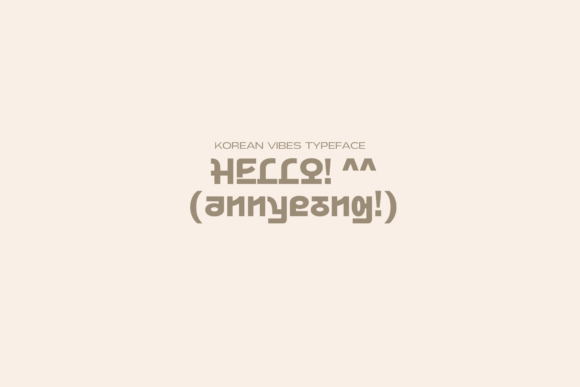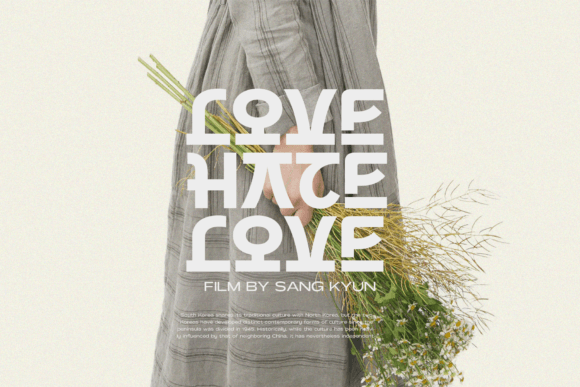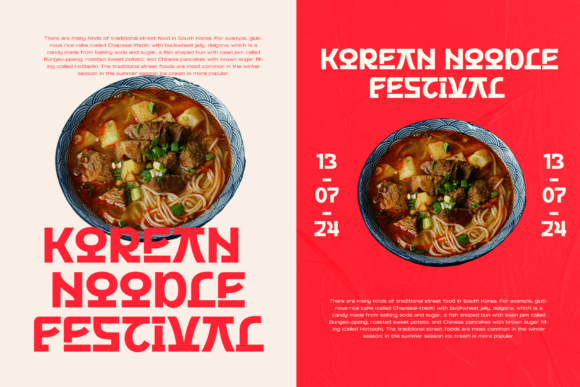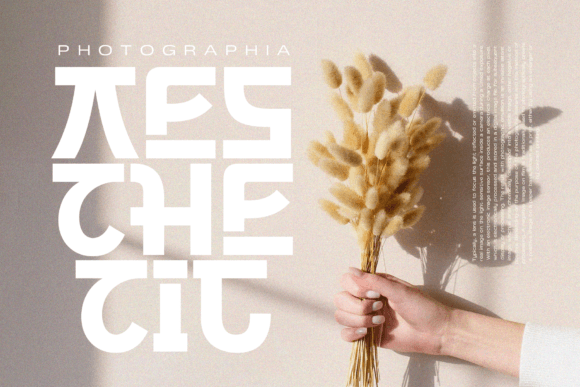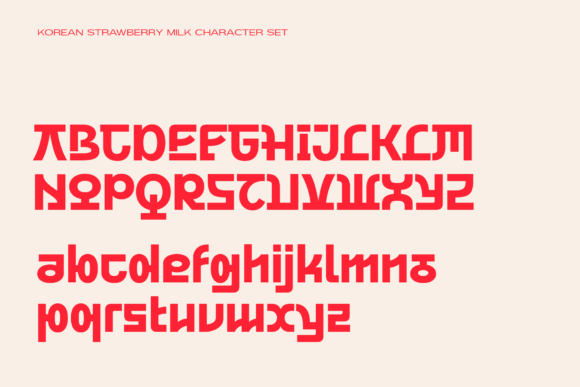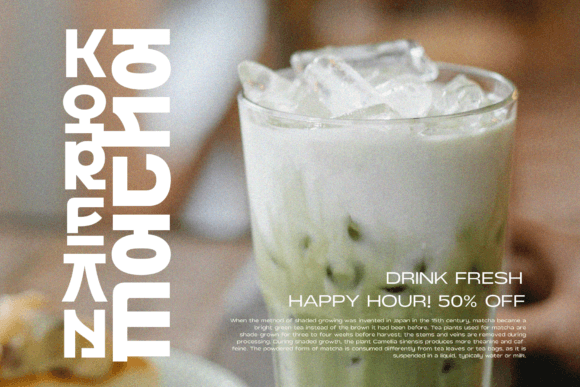
Introduction to Korean Strawberry Milk Font Font
Fonts play a crucial role in design, and the Korean Strawberry Milk Font font is a typeface that brings both character and versatility to any project. Whether you’re working on a branding project, a website, or a print design, the Korean Strawberry Milk Font font offers a unique style that can elevate your work.
Discover the charm of โKorean Strawberry Milk,โ a delightful Korean style font that brings a touch of sweetness and elegance to your designs.
Inspired by the graceful strokes of traditional Korean calligraphy, โKorean Strawberry Milkโ adds a unique cultural flair to your text Discover the charm of โKorean Strawberry Milk,โ a delightful Korean style font that brings a touch of sweetness and elegance to your designs.
Key Features of Korean Strawberry Milk Font Font
- โ High-quality typeface designed for professional use
- โ Includes a wide range of glyphs and characters
- โ Ideal for logos, branding, websites, and print
Why Choose Korean Strawberry Milk Font Font?
The Korean Strawberry Milk Font font is more than just a typeface โ it’s a design tool that helps you communicate your message with style and clarity. Its unique character set and versatile design make it suitable for a wide range of applications, from elegant invitations to bold headlines.
With its carefully crafted letterforms and balanced proportions, the Korean Strawberry Milk Font font ensures readability and visual appeal across all mediums.
What makes Korean Strawberry Milk Font font special?
The Korean Strawberry Milk Font font stands out with its unique design, exceptional readability, and versatility across various design applications.